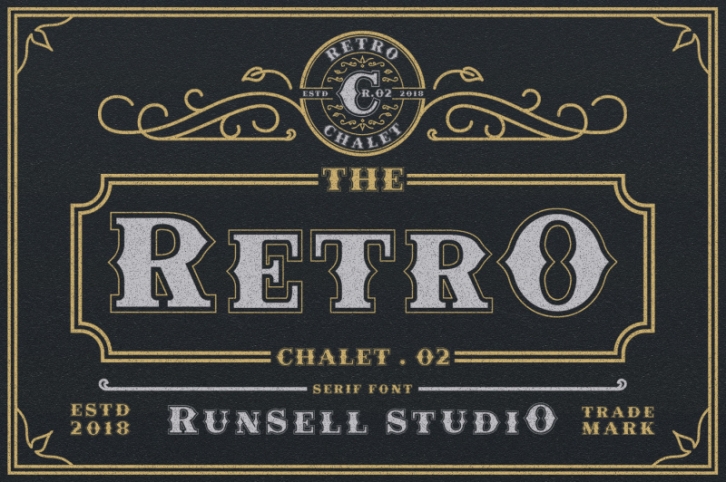
Retro Chalet .02 is vintage fonts with outline and unique typefaces. This font there are two styles. Perfect to use for logotype, letterhead, poster, apparel design, label, branding, old qoutes and etc.
Retro Chalet .02 Font features uppercase, lowercase, numeral, punctuation & symbol, ligatures, multilingual support, PUA encoded.